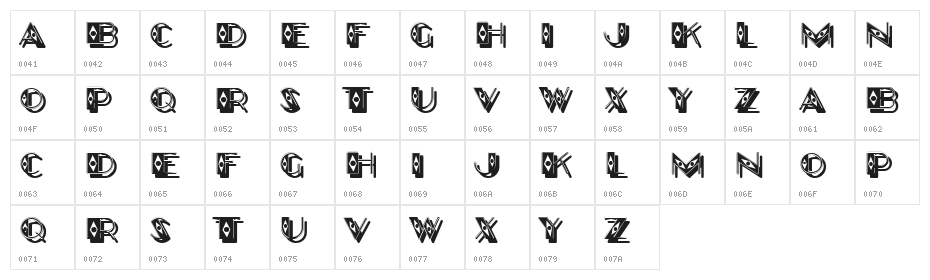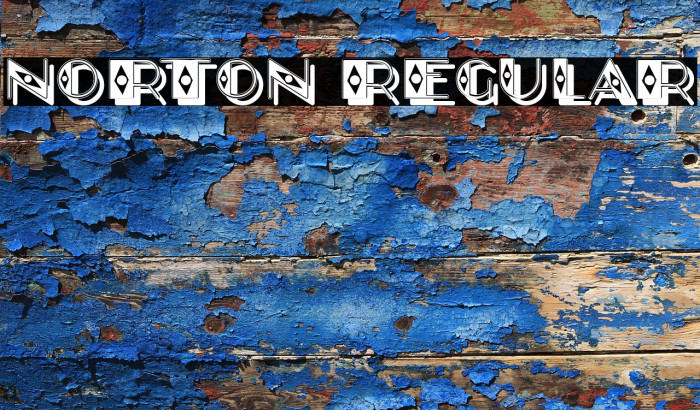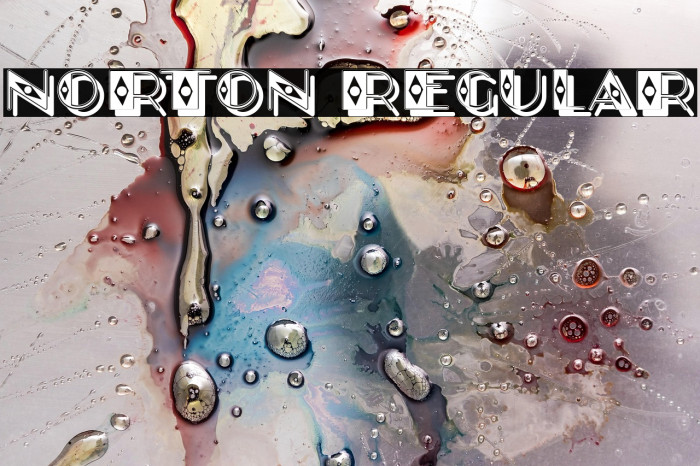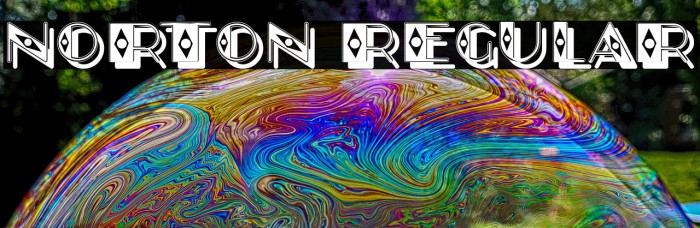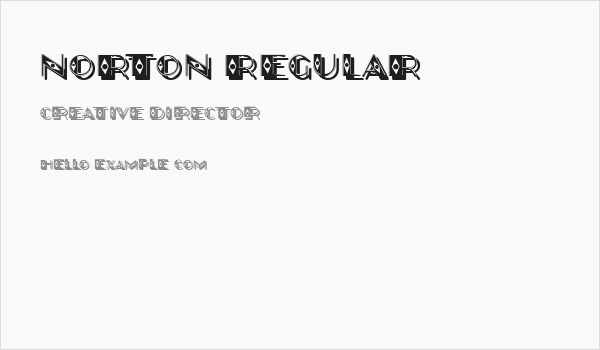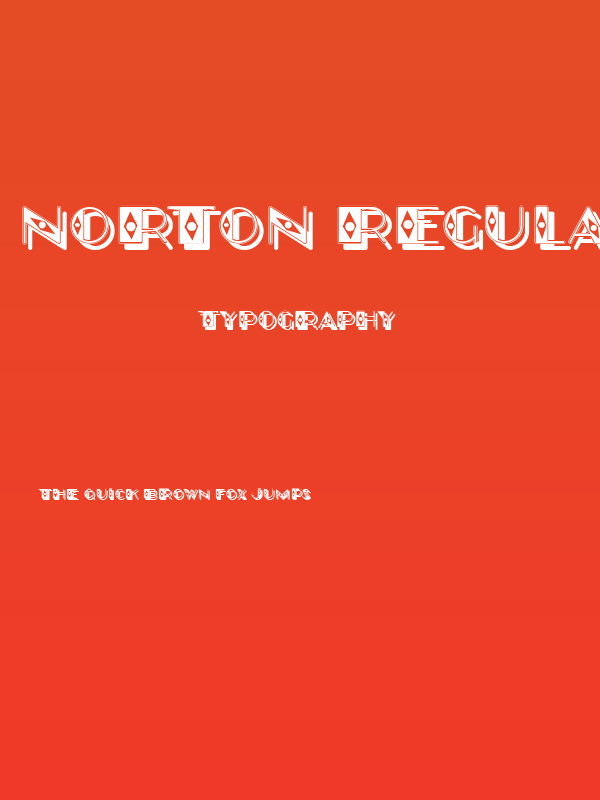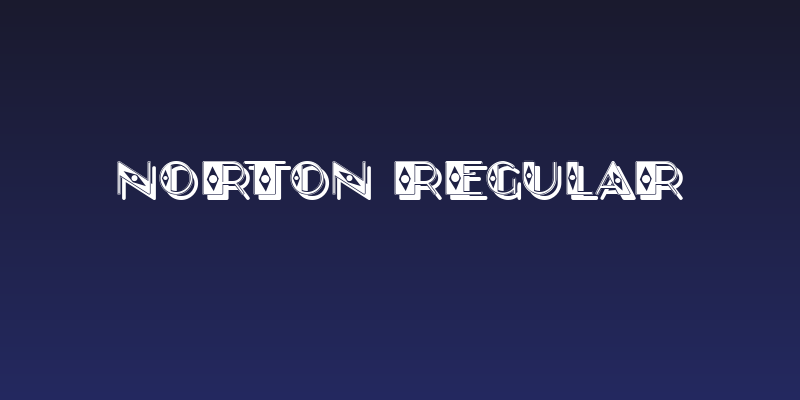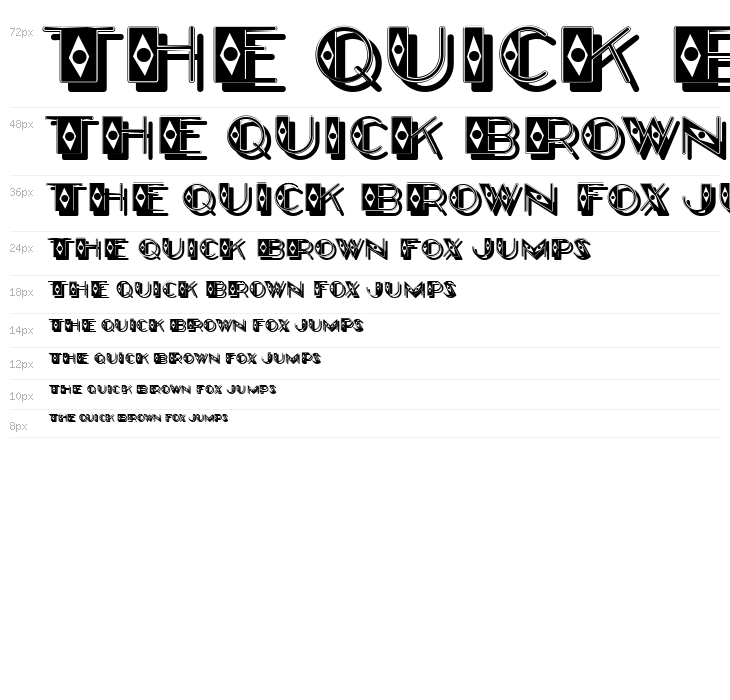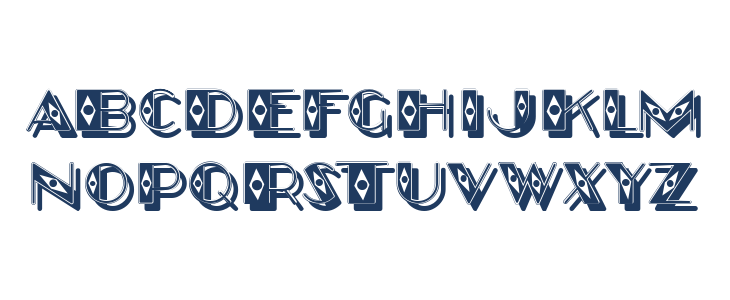
Norton Regular Font
Norton Regular Description
This font features a bold and decorative style with intricate geometric patterns embedded within each character. The uppercase letters are designed with a strong presence, incorporating diamond-shaped cutouts that add a unique flair. The overall appearance is striking and artistic, making it ideal for attention-grabbing designs. The letters are evenly spaced, ensuring readability despite the complex design elements. This font is perfect for projects that require a bold statement, combining both modern and artistic elements.
| Proposed Projects | Ideal for poster designs, album covers, branding projects, and any creative work that requires a bold and artistic touch. |